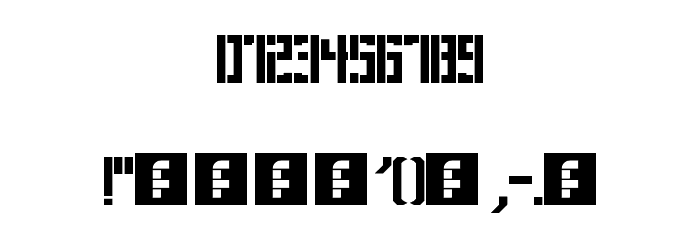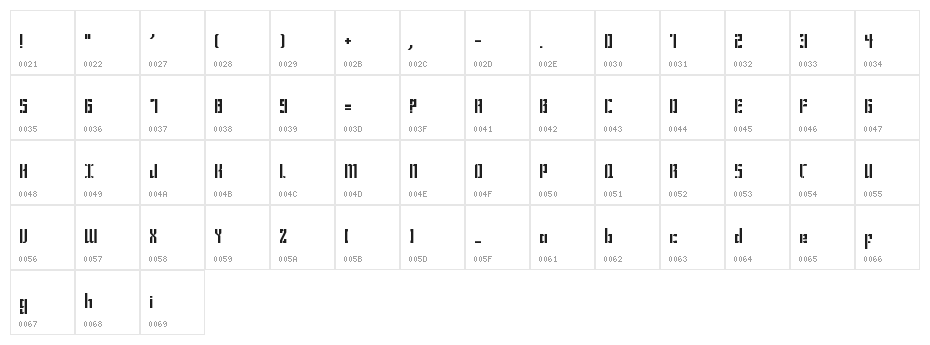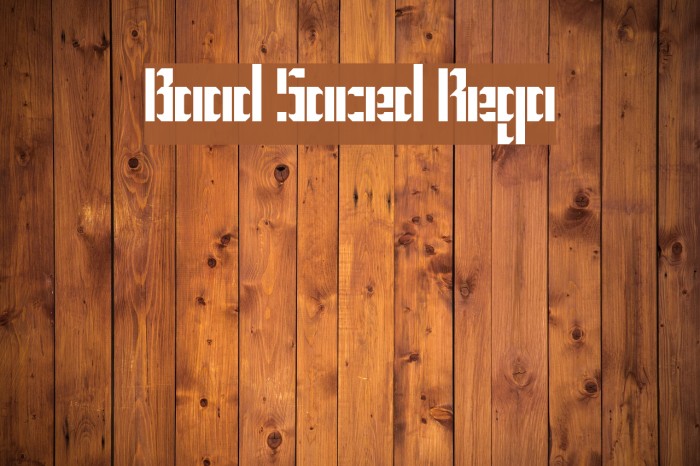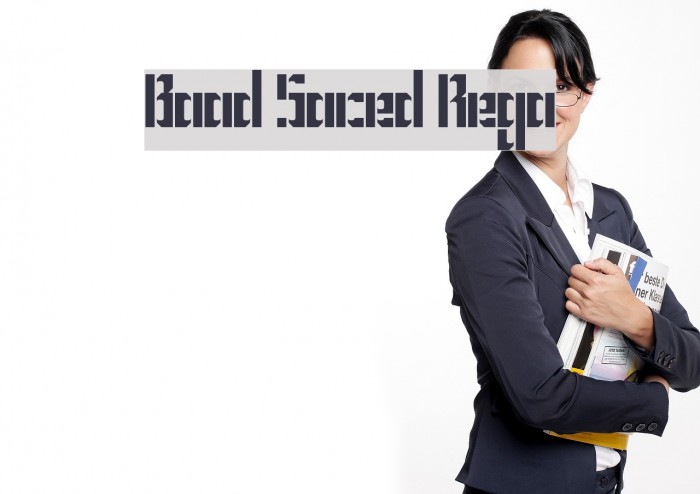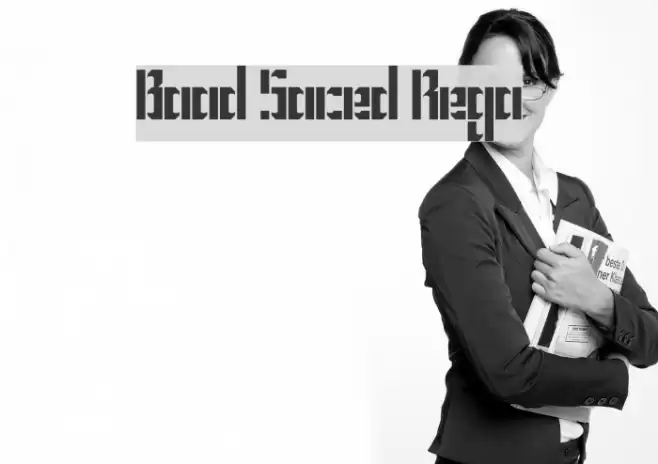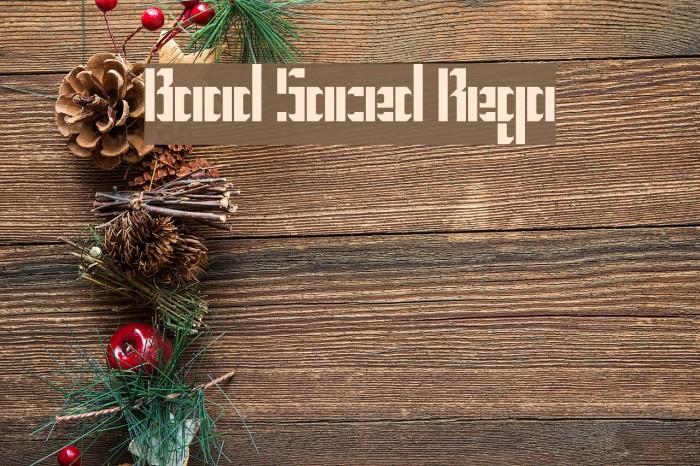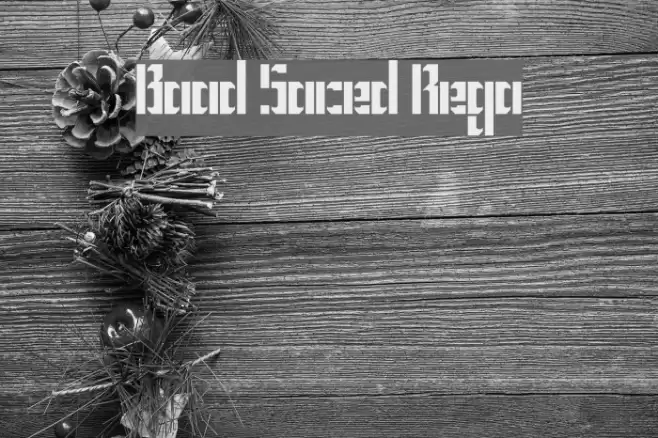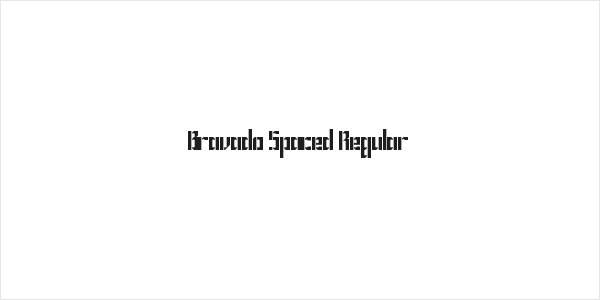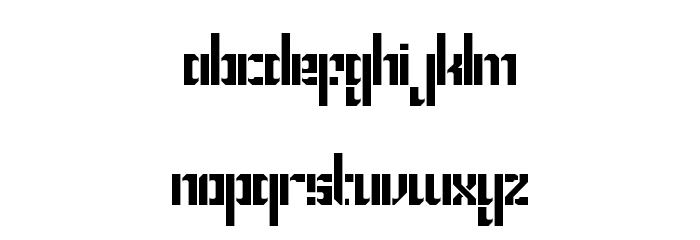
Bravado Spaced Regular Font
Bravado Spaced Regular Description
This font features a bold and striking design with a distinctly modern and geometric style. The characters are constructed with sharp, angular lines and a consistent stroke width, giving it a strong and impactful presence. The uppercase and lowercase letters maintain a uniform height, contributing to a cohesive and structured appearance. The numbers and special characters are designed to match the overall aesthetic, ensuring visual harmony across all elements. This font's unique style makes it suitable for projects that require a contemporary and assertive look.